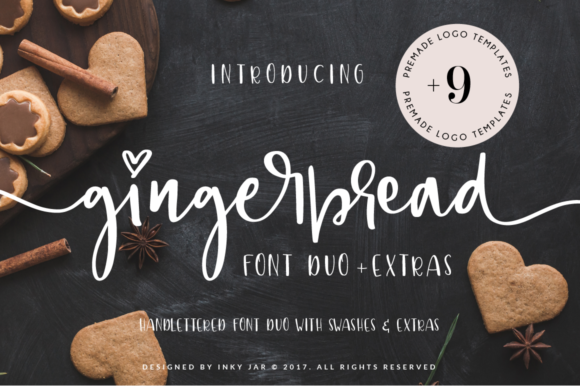
Introducing Gingerbread Duo Font, a delightful addition to any font collection. This bouncy, hand-lettered font duo is designed to captivate and inspire. Created by inkyjar, this font family offers endless possibilities for those seeking a touch of playfulness and elegance.
With its abundance of swashes and illustrations, Gingerbread Duo Font brings a unique charm to your projects. Whether you're designing for a feminine brand or simply want to add a touch of whimsy, this font is sure to impress. It's time to elevate your designs with the perfect blend of creativity and sophistication.
What sets Gingerbread Duo Font apart is its versatility. With 2 additional sets of stylistic alternates for beginning and ending letterforms, you can create captivating typography that stands out from the crowd. It's like having a personal calligrapher at your fingertips, ready to breathe life into your words.
But the value doesn't stop there. As a bonus, Gingerbread Duo Font includes 9 pre-made logo templates. These professionally designed logos are ready to use, saving you time and effort. Whether you're a designer working on client projects or an entrepreneur looking to enhance your own branding, these templates are a game-changer.
With its eye-catching features and attention to detail, Gingerbread Duo Font is a must-have for any creative professional. It's time to unleash your creativity and embrace the endless possibilities this font offers. From wedding invitations to social media graphics, this font will infuse your projects with a touch of magic.